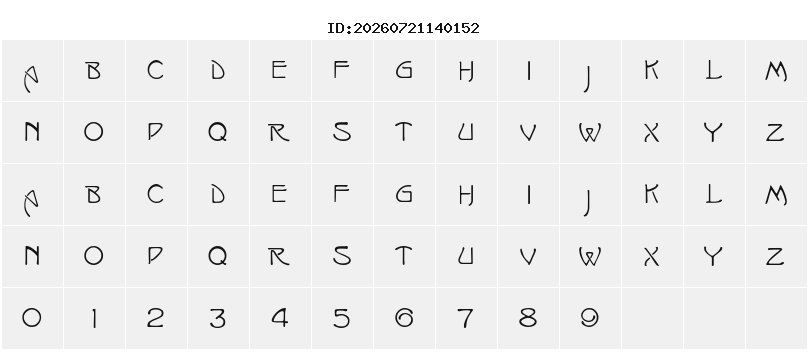
Fellenni Caps Preview
About Fellenni Caps.ttf
Fellenni Caps.ttf is a modern, elegant sans-serif font designed for ultimate readability and visual harmony. Perfect for branding, headlines, web design, and print materials.